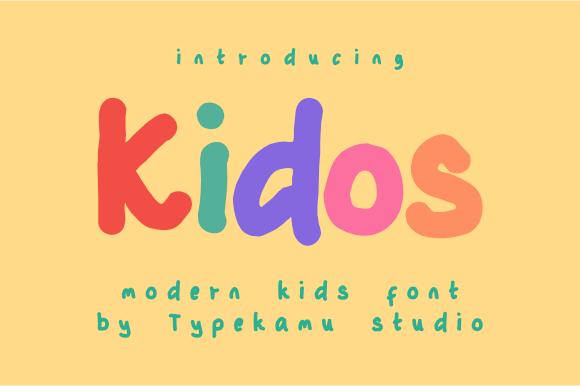
Welcome to the world of Kidos Font, where learning and fun go hand in hand!
Unleash the power of Kidos Font, a vibrant display font crafted with the sole purpose of bringing life to children's activities and school projects. Let your child's imagination run wild as they embrace the playful spirit embodied in each letterform, designed to spark creativity and captivate young minds. This chunky, hand-lettered font is a true game-changer, transforming ordinary words into an enchanting visual feast that will make your child's projects shine.
Picture your child's eyes lighting up as they see their homework assignments, storybooks, and presentations transformed into captivating works of art. Kidos Font breathes life into the written word, making learning an exciting adventure. It's the perfect companion for coloring books, posters, invitations, and any project that calls for a touch of whimsy and joy.
With Kidos Font, you'll have the ultimate tool to create an unforgettable learning experience for your child. Its bold and friendly characters are designed to enhance readability, making it easier for children to absorb information and comprehend complex concepts. Kidos Font is a font that truly understands the magic of childhood, igniting a passion for learning that will stay with your child for years to come.
So, why settle for ordinary fonts when you can give your child the gift of Kidos Font? Let their creativity soar, their imagination take flight, and their love of learning grow stronger. Embark on this journey of discovery with Kidos Font and witness the transformative power of a font that speaks directly to the hearts and minds of children.